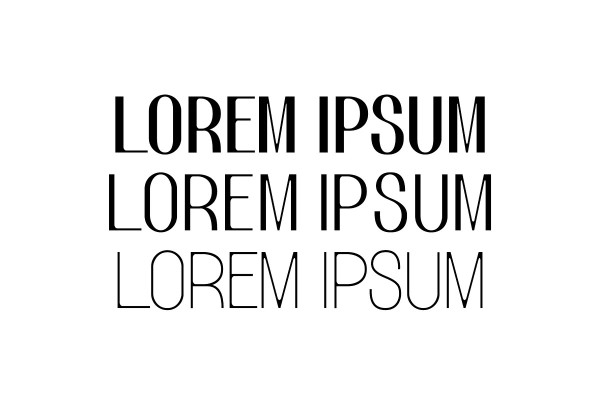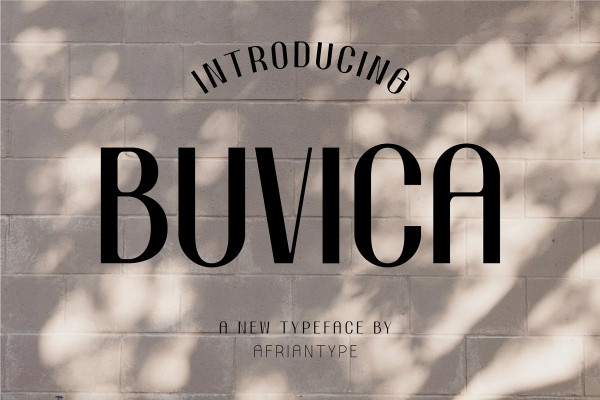
Buvica Font
Buvica Font is a stylish modern sans serif condensce display font. Minimalist character that allowing you to easily edit the designs. It is perfect for branding, wedding invites and cards, and maybe for some project.